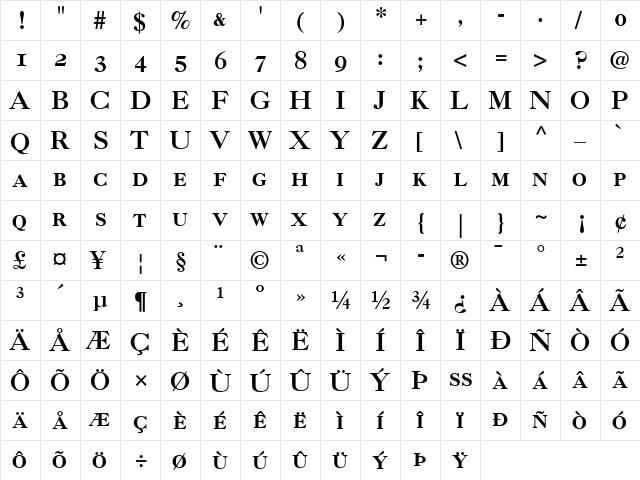
Caslon 3 RomanSC Regular
Design Context for Caslon 3 RomanSC Typeface
Caslon 3 RomanSC takes a measured approach to typography — its balanced proportions and neutral character make it a reliable workhorse for both digital and print work.